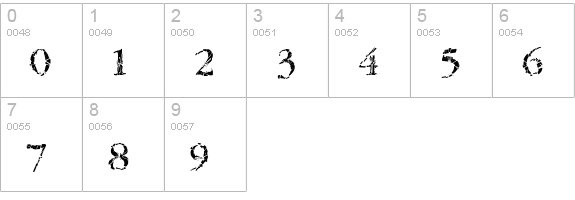
Disney Twilite Zone Tower of Terror Book Font Details
Disney Twilite Zone Tower of Terror Book is a comfortable, highly readable variant in the Disney typeface family \xE2\x80\x94 well suited to long-form body text, articles, and editorial content.
The Disney Twilite Zone Tower of Terror Book font is a whimsical and enchanting typeface that captures the magic of the iconic Tower of Terror attraction at Disney parks. With its bold and intricate design, this font is perfect for creating captivating headlines, posters, and designs that transport you to the thrilling world of the Twilight Zone. And the best part? This stunning font is available for free download at FontsMarket.com! Embrace the nostalgia and mystery of the Tower of Terror with this unique and versatile font that is sure to elevate your projects to new heights. Download the Disney Twilite Zone Tower of Terror Book font today and unleash your creativity!